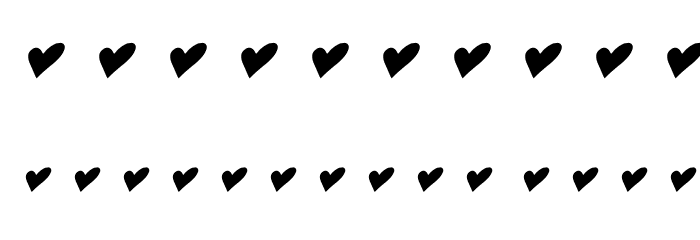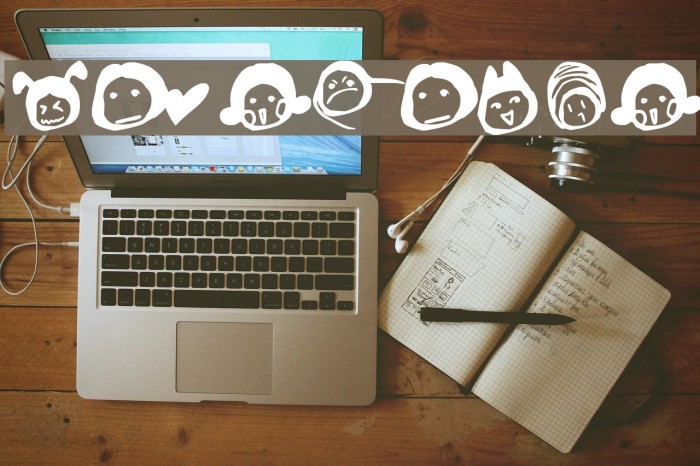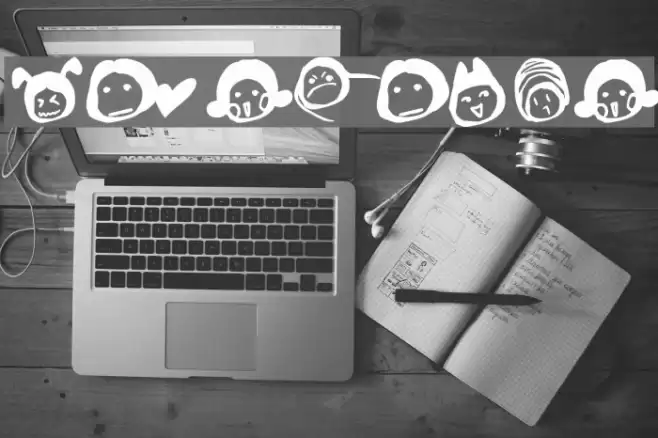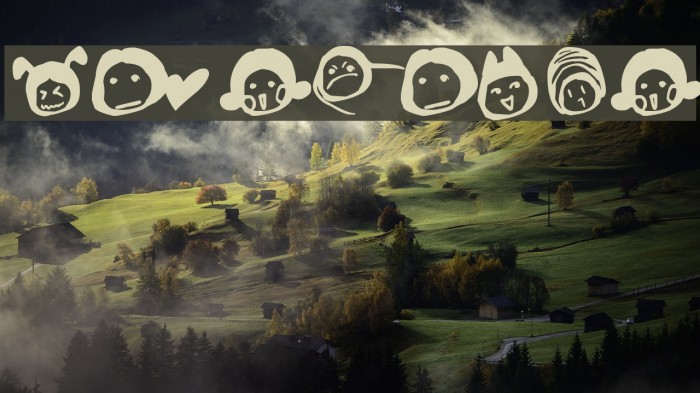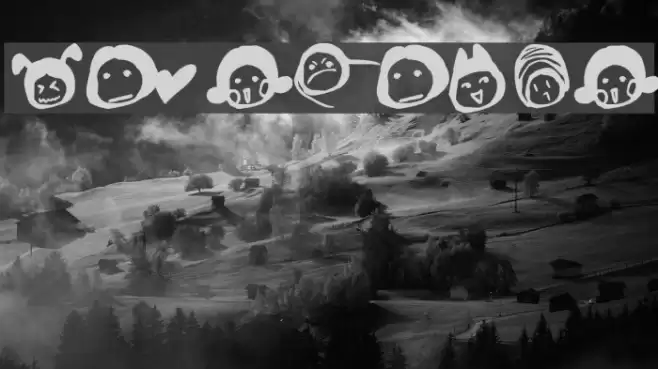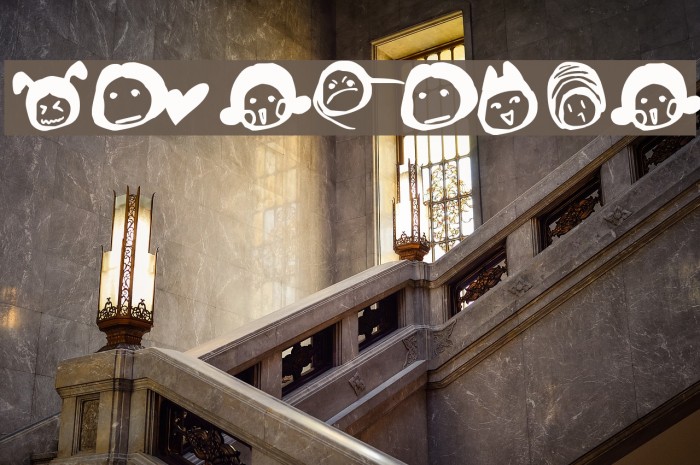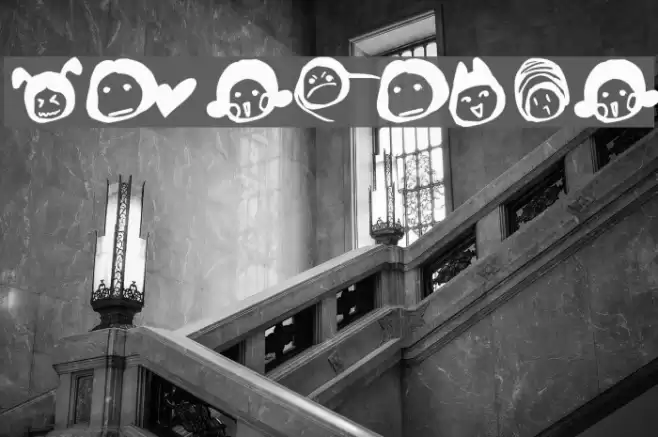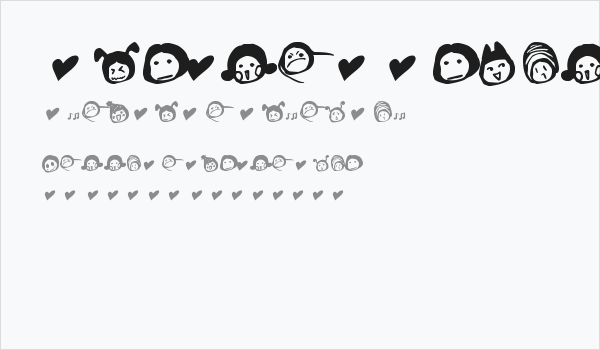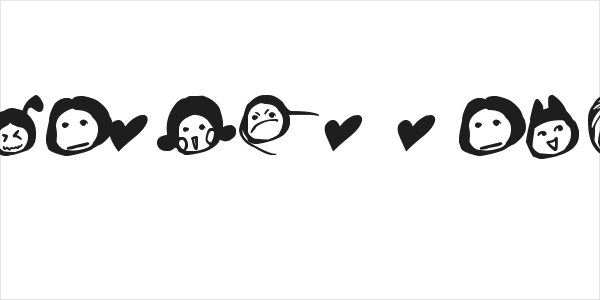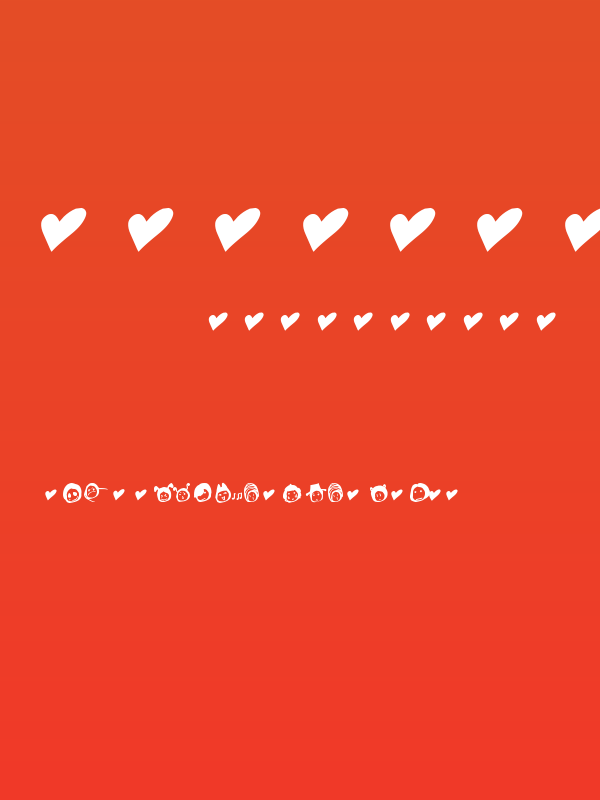
Simplesymbol Font
Simplesymbol Description
| Overall Style | Playful, Decorative, Hand-drawn |
| Use Case | Decorative accents, informal designs, headings, crafts. |
| Proposed Projects | Children's books, greeting cards, playful branding, party invitations, scrapbooking, stickers. |